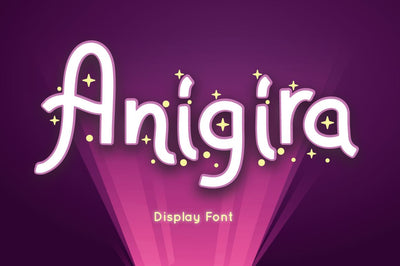
Anigira - Display Font
Anigira is display script font inspired by magic show.
Combine it with Anigira - Display to make an amazing background effect on your letter!
Anigira perfect for magic show promotion, branding, logo, invitation, stationery, social media post, product packaging, merchandise,
blog design, game titles, cute style design, Book/Cover Title and more.